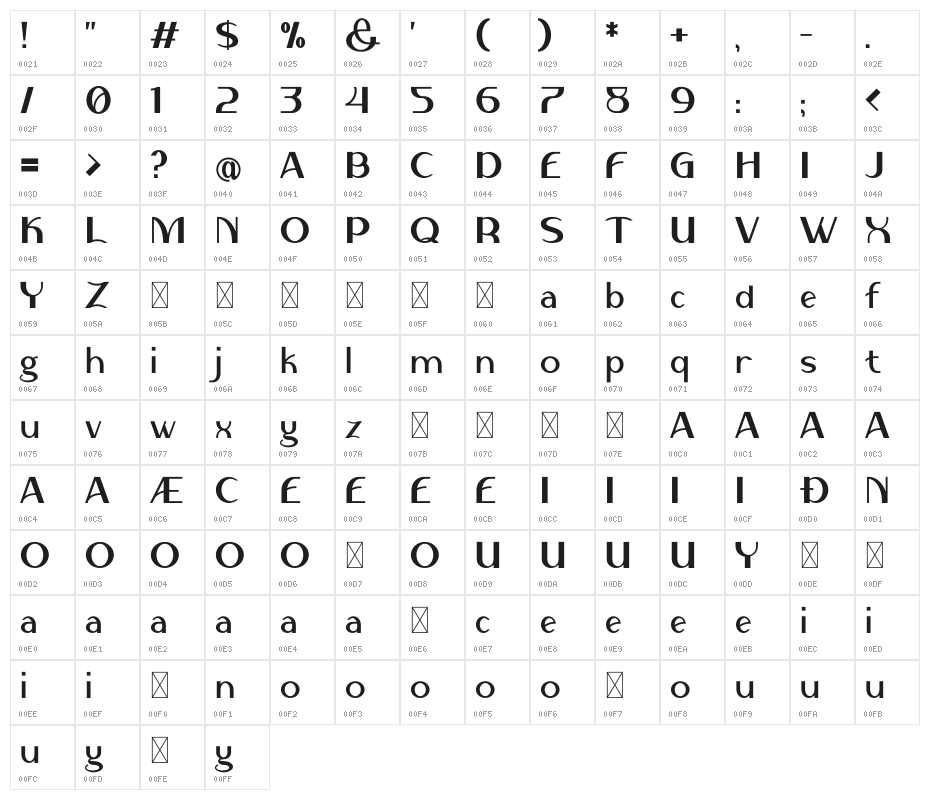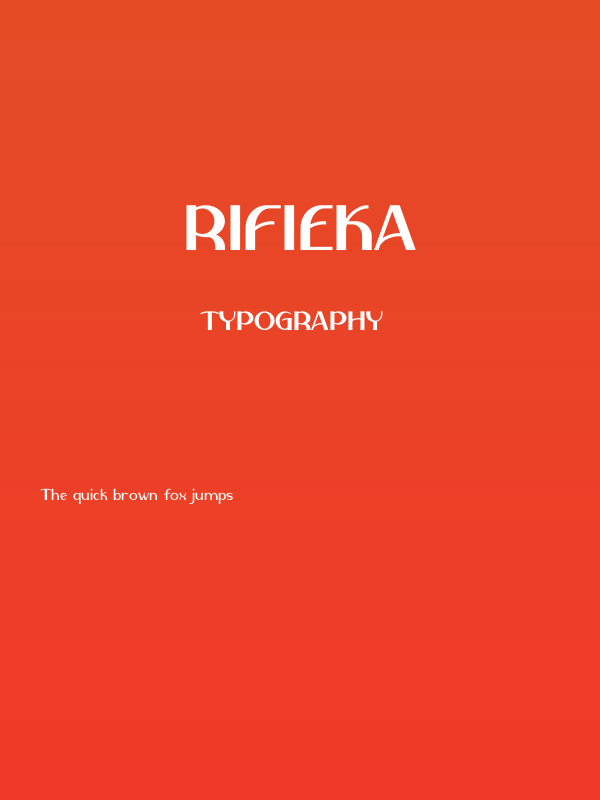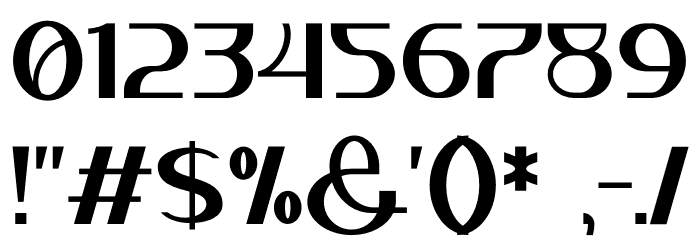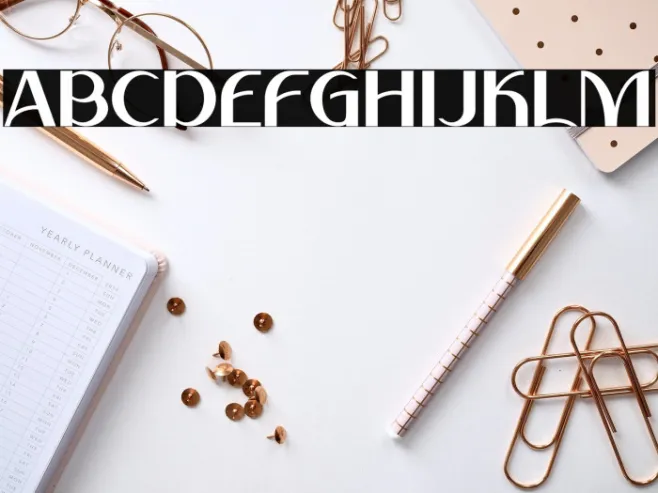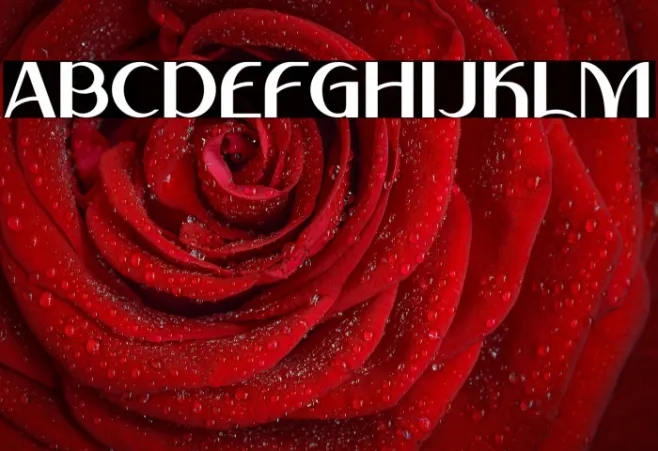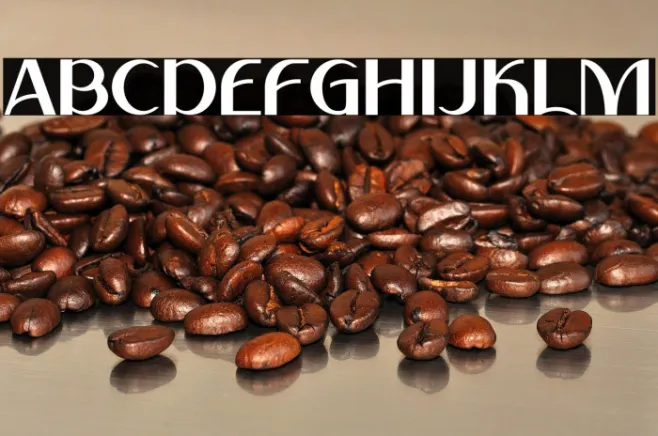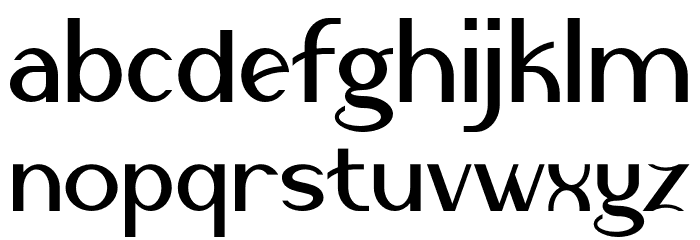
Rifieka Font
Rifieka Description
This font features a unique blend of modern and classic elements, characterized by its distinct, sharp serifs and clean lines. The uppercase letters exhibit a bold presence with slightly curved strokes, giving them a dynamic and elegant appearance. The lowercase letters maintain a consistent style, with subtle variations in stroke width that add a touch of sophistication. The numerals are well-proportioned, complementing the overall aesthetic of the font. Special characters are designed with the same attention to detail, ensuring a cohesive look across all elements. This font's versatility makes it suitable for a wide range of design projects.
| Use Case | Headlines, Logos, Editorial design |
| Proposed Projects | Ideal for branding, editorial design, advertising, and web design projects that require a sophisticated and modern touch. |